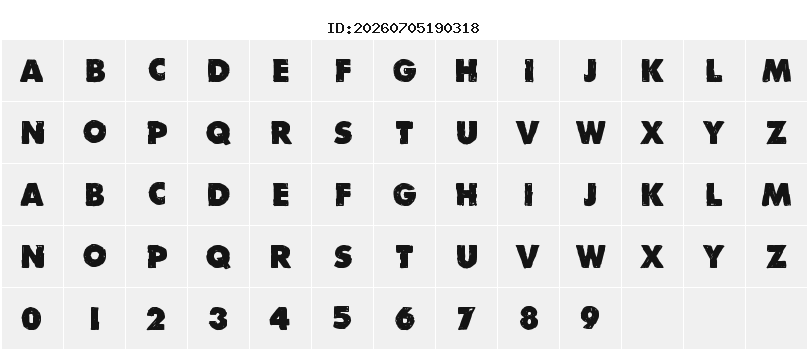
• Font Name: Divisible Invisible Low
Divisible Invisible Low.ttf is a modern, elegant sans-serif font designed for ultimate readability and visual harmony. Perfect for branding, headlines, web design, and print materials.